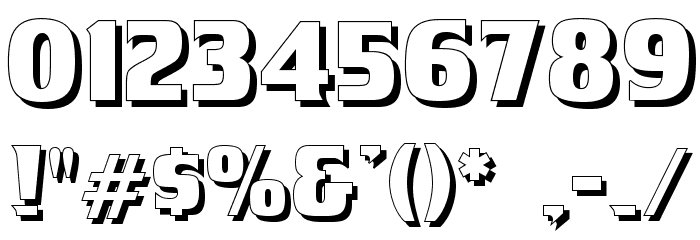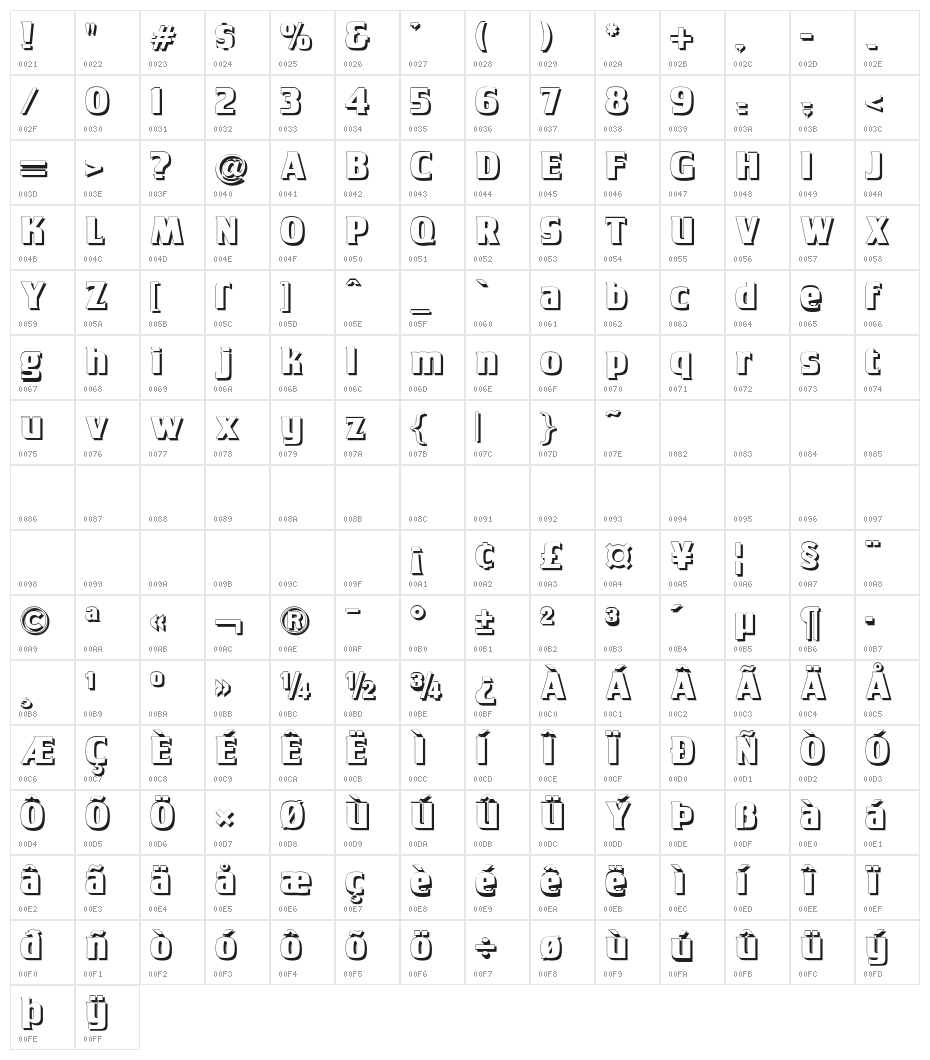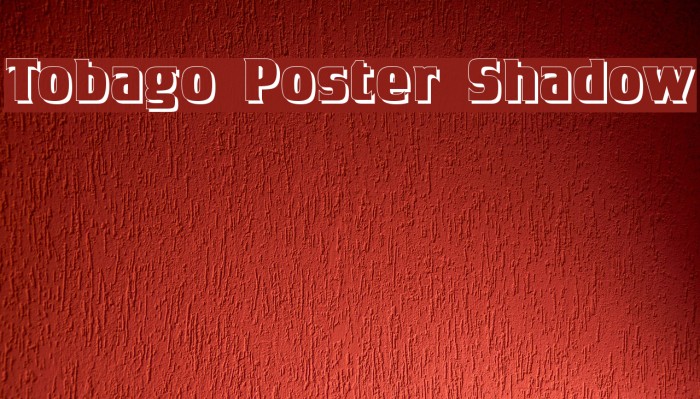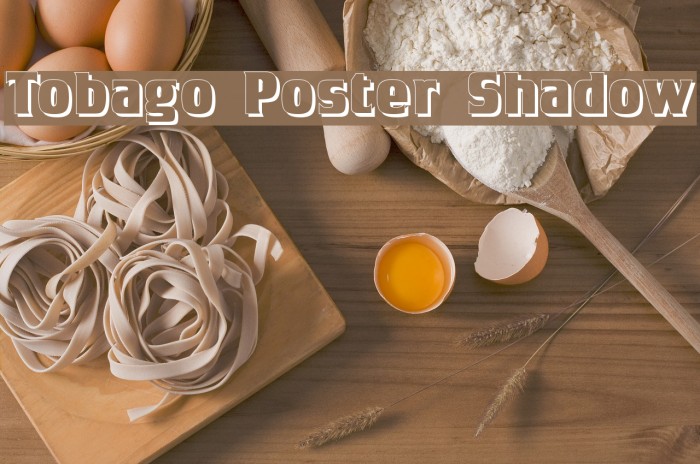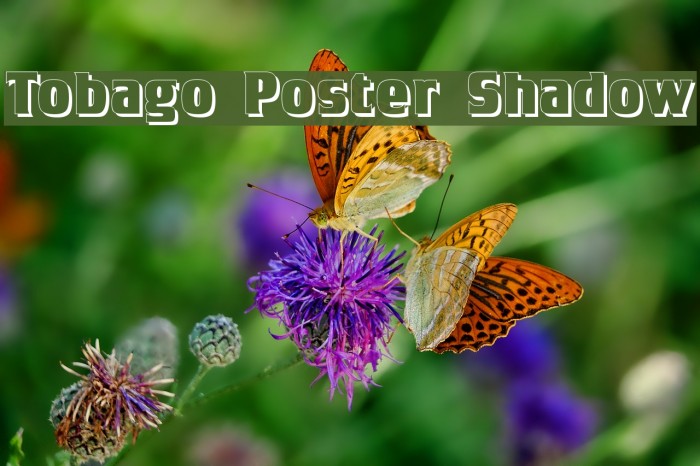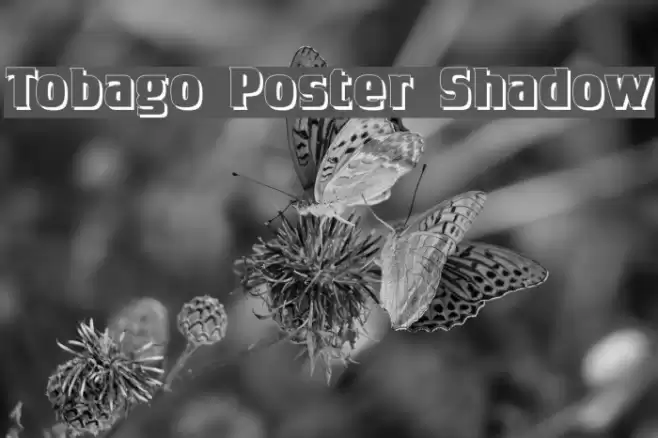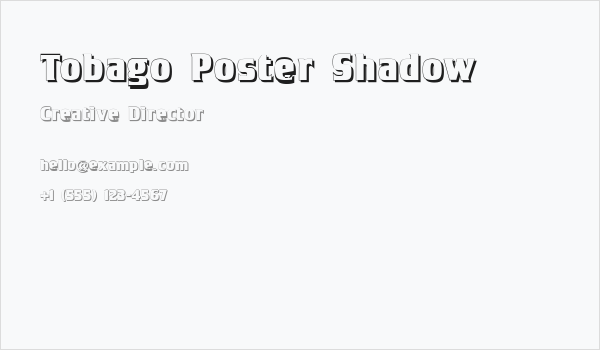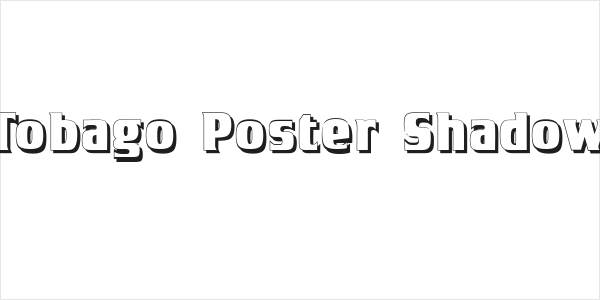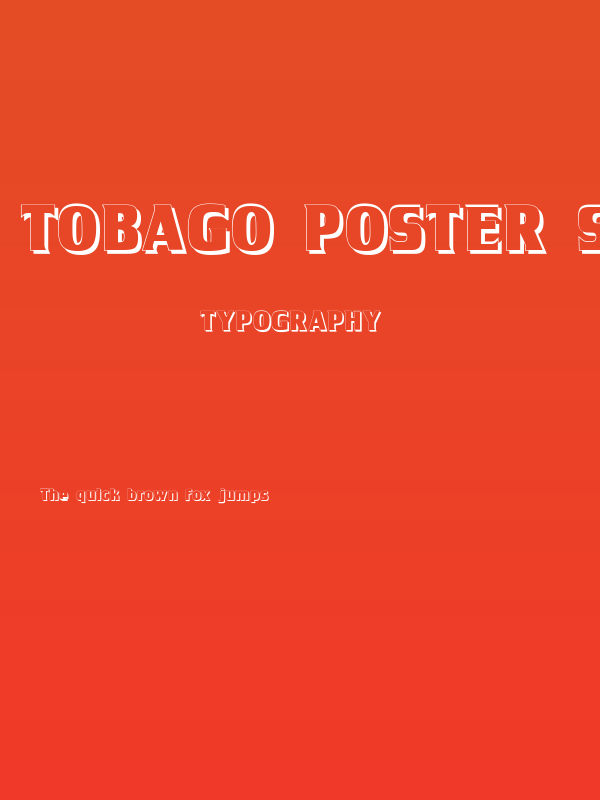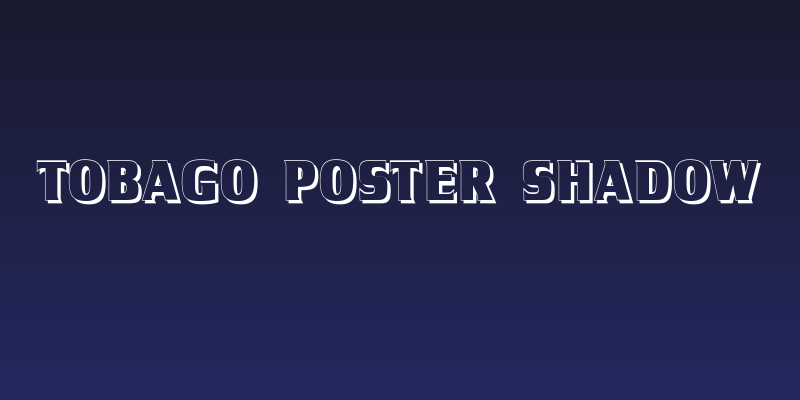
Tobago Poster Shadow Font
Tobago Poster Shadow Description
This font features a bold, impactful design with a distinct shadow effect that adds depth and dimension to each character. The uppercase and lowercase letters are crafted with strong, geometric lines, giving the font a modern and assertive appearance. The shadowing is consistent across all characters, enhancing readability while maintaining a stylish look. The numerals and special characters share the same boldness and shadow detail, ensuring uniformity throughout. This font is ideal for creating eye-catching headlines, posters, and branding materials where a strong visual presence is required.
| Proposed Projects | Ideal for posters, headlines, branding, and advertising materials. |